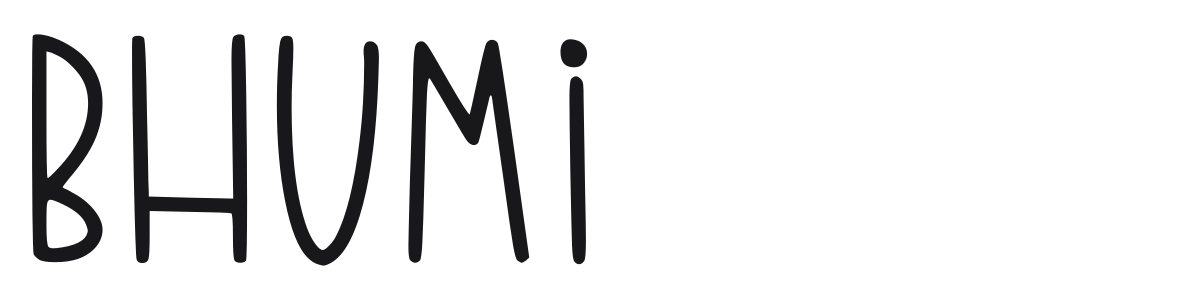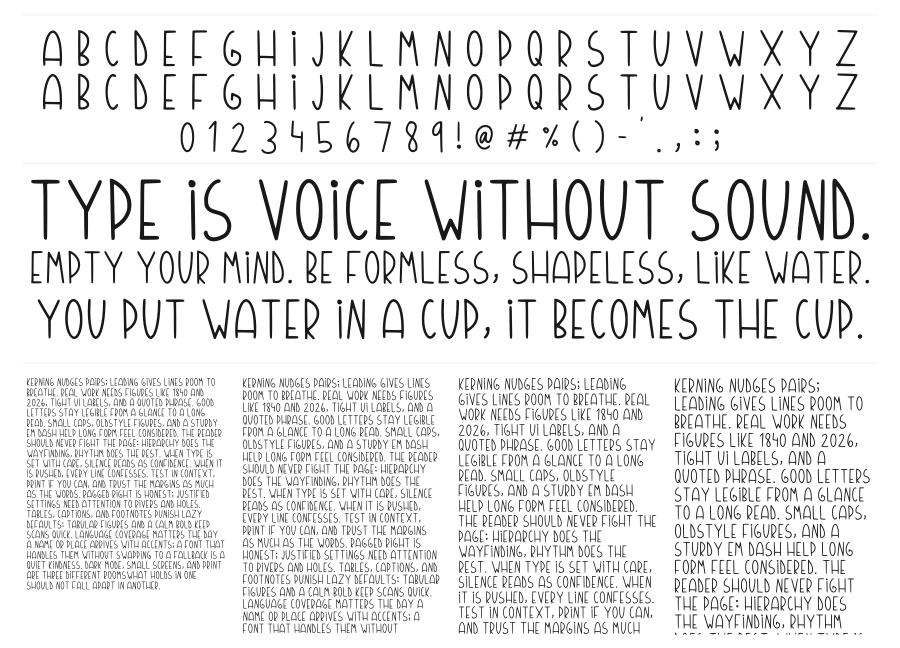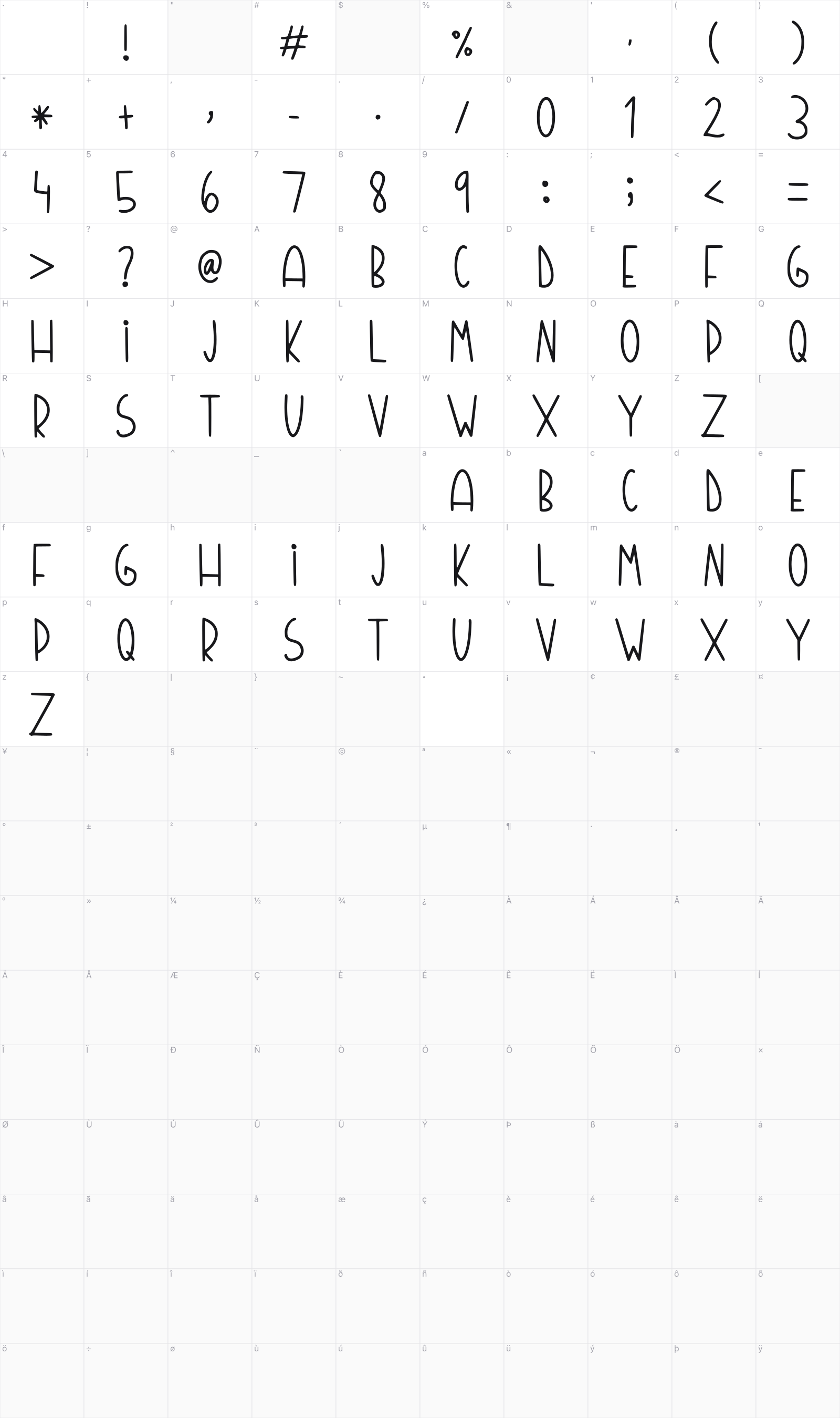
Bhumi
Bhumi is a casual upright handwritten font with tall, narrow characters and a loose, pen-drawn warmth. Slight irregularities in stroke width and letter spacing keep it feeling genuinely hand-made rather than mechanical. It works well for anything that needs an approachable, human touch at display sizes.